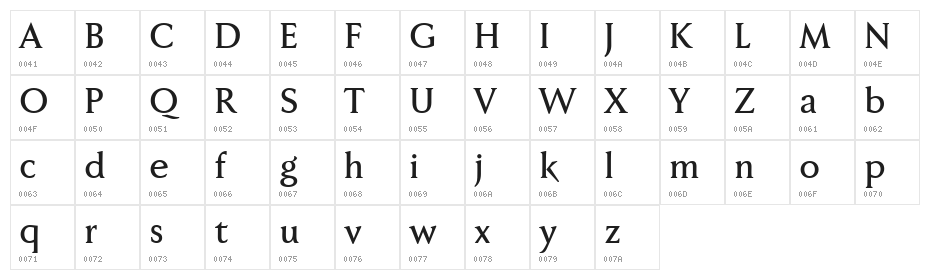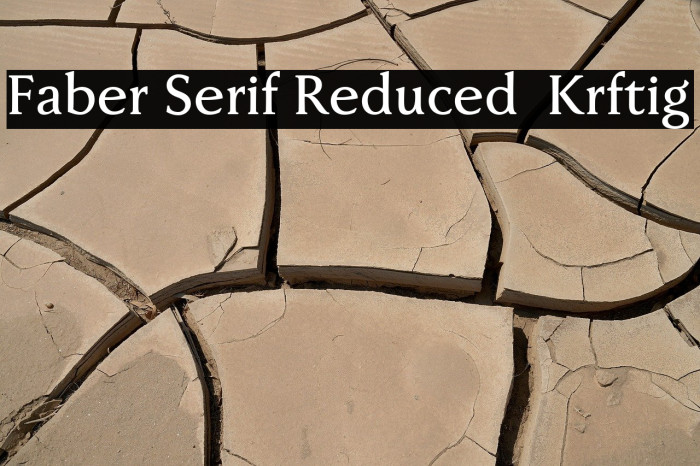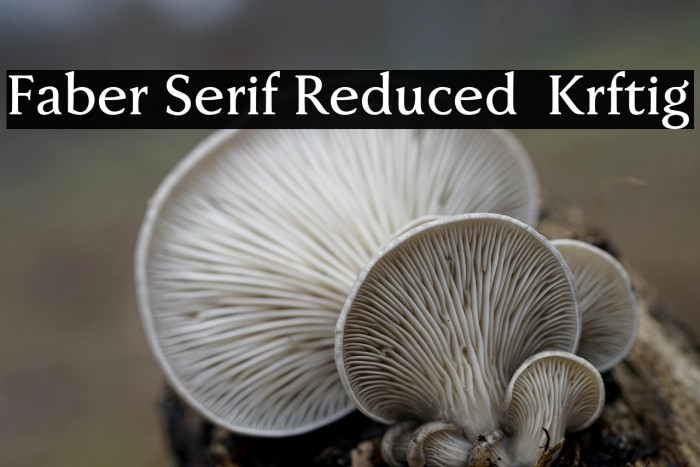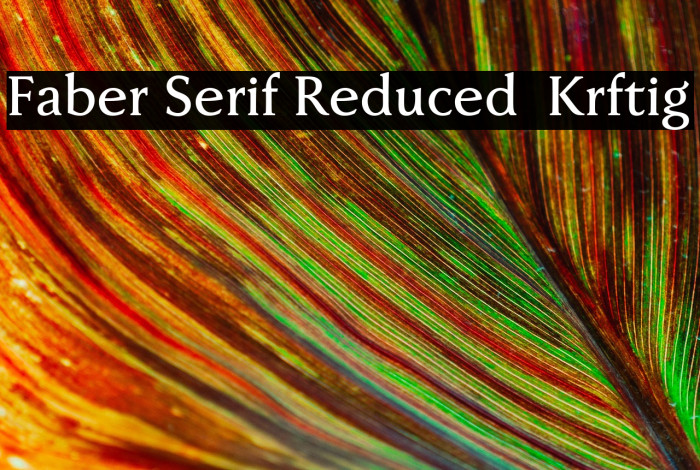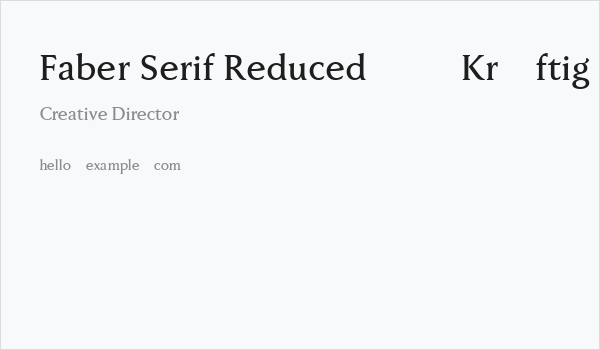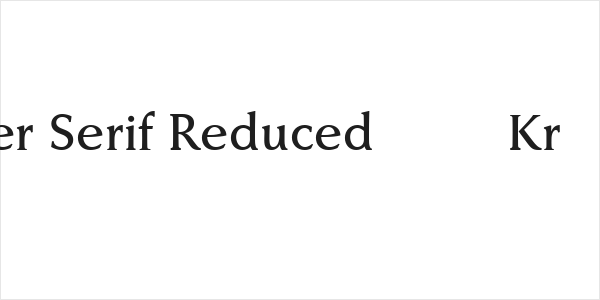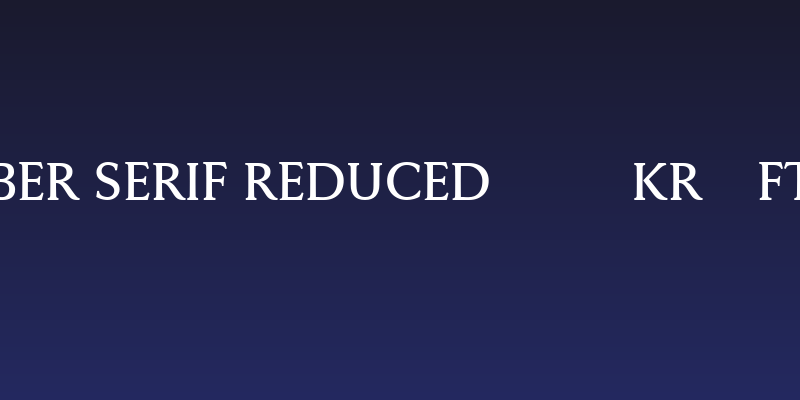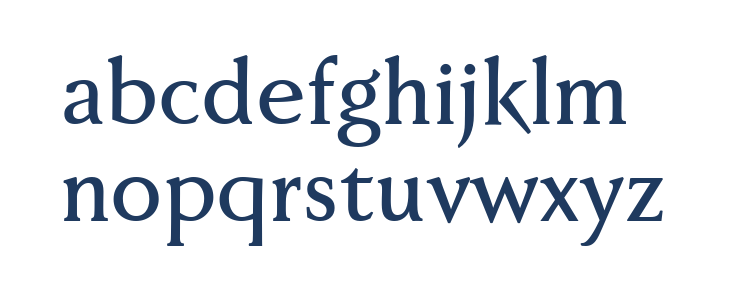
Faber Serif Reduced 65 Kräftig Font
Faber Serif Reduced 65 Kräftig Description
This serif font exudes a classic elegance with its well-defined strokes and moderate contrast. The uppercase letters are bold and commanding, while the lowercase letters maintain a refined and balanced appearance. The serifs are pronounced, adding a touch of sophistication and tradition. The font's structure is sturdy, making it suitable for both formal and professional settings. Its readability is enhanced by the clear distinction between each character, making it ideal for print and digital media. The overall design is timeless, offering versatility for various applications.